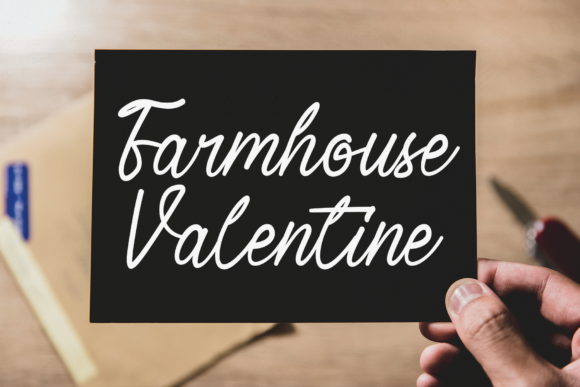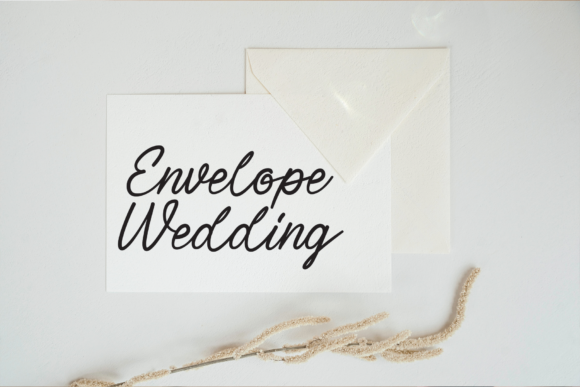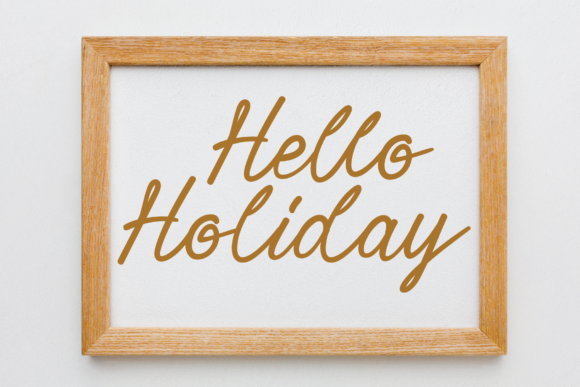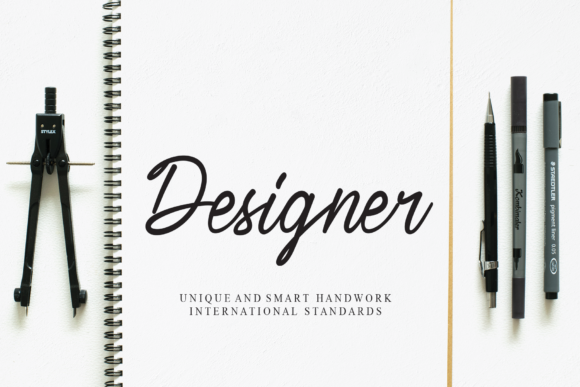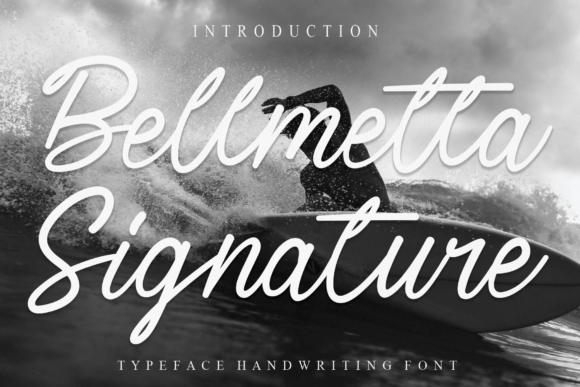
Bellmetta Signature Font: Elevate Your Designs with Elegance
In the world of typography, a font can make or break a design. For designers and crafters, finding the perfect font that adds a touch of elegance and sophistication can be a daunting task. However, with Bellmetta Signature Font, your search is over. This delicate and polished handwritten font is designed to elevate your designs and bring your creative ideas to life.
The Beauty of Bellmetta Signature Font
Bellmetta Signature Font boasts beautiful and well-balanced characters that make it a versatile addition to any design project. Its delicate and polished appearance gives it a unique charm that sets it apart from other fonts. Whether you’re working on a logo, branding materials, or digital content, Bellmetta Signature Font is the perfect choice.
Key Features of Bellmetta Signature Font
- Delicate and polished appearance: Bellmetta Signature Font features a beautiful, handwritten design that adds a touch of elegance to any project.
- Well-balanced characters: The font’s characters are carefully crafted to ensure balance and harmony, making it easy to read and visually appealing.
- Versatility: Bellmetta Signature Font matches a wide pool of designs, making it a great addition to your font collection.
Why Choose Bellmetta Signature Font?
As a designer or crafter, you understand the importance of using high-quality fonts that reflect your brand’s personality. Bellmetta Signature Font offers a range of benefits that make it an excellent choice for your design projects:
- Adds elegance and sophistication: The font’s delicate and polished appearance adds a touch of luxury to any design.
- Enhances creativity: With Bellmetta Signature Font, you can bring your creative ideas to life and create stunning designs that capture attention.
How to Use Bellmetta Signature Font
- Logos and branding materials: Use Bellmetta Signature Font to create a logo or branding materials that reflect your brand’s personality.
- Digital content: Add a touch of elegance to your digital content, such as blog posts, social media graphics, and email newsletters.
- Crafting and DIY projects: Use Bellmetta Signature Font to add a personal touch to your crafting and DIY projects, such as handmade cards and gift tags.
In conclusion, Bellmetta Signature Font is a beautiful and versatile handwritten font that can elevate your designs and bring your creative ideas to life. With its delicate and polished appearance, well-balanced characters, and ease of use, it’s a great addition to any design project. Whether you’re a designer, crafter, or DIY enthusiast, Bellmetta Signature Font is a must-have font that will add a touch of elegance and sophistication to your work.